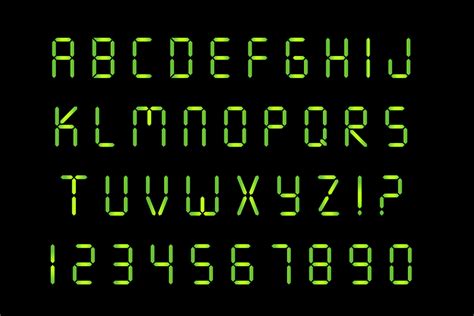
7 Segment Display Fonts lasopaceleb
7 Segment Display Font. 7 segment display is a font using only 7 segments that can turn off or on independently to display number,.
7 segment display is a font using only 7 segments that can turn off or on independently to display number,.
7 segment display is a font using only 7 segments that can turn off or on independently to display number,. 7 segment display is a font using only 7 segments that can turn off or on independently to display number,.